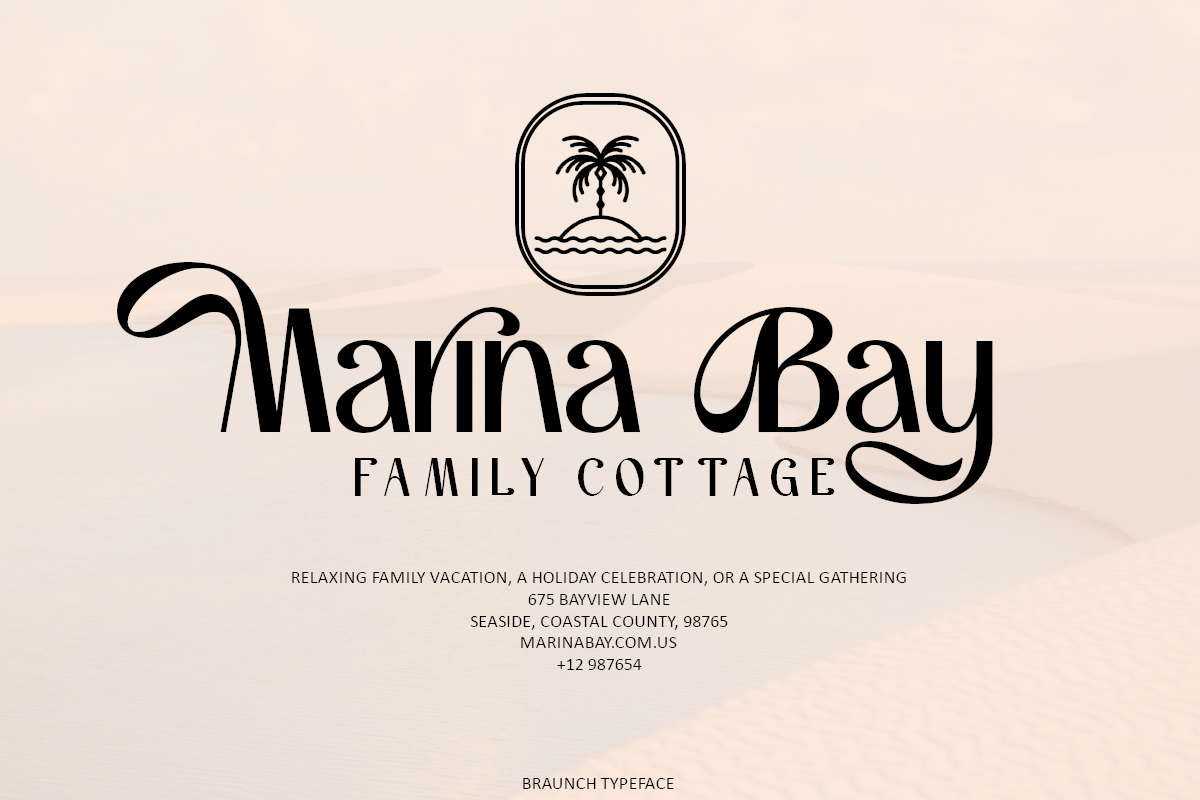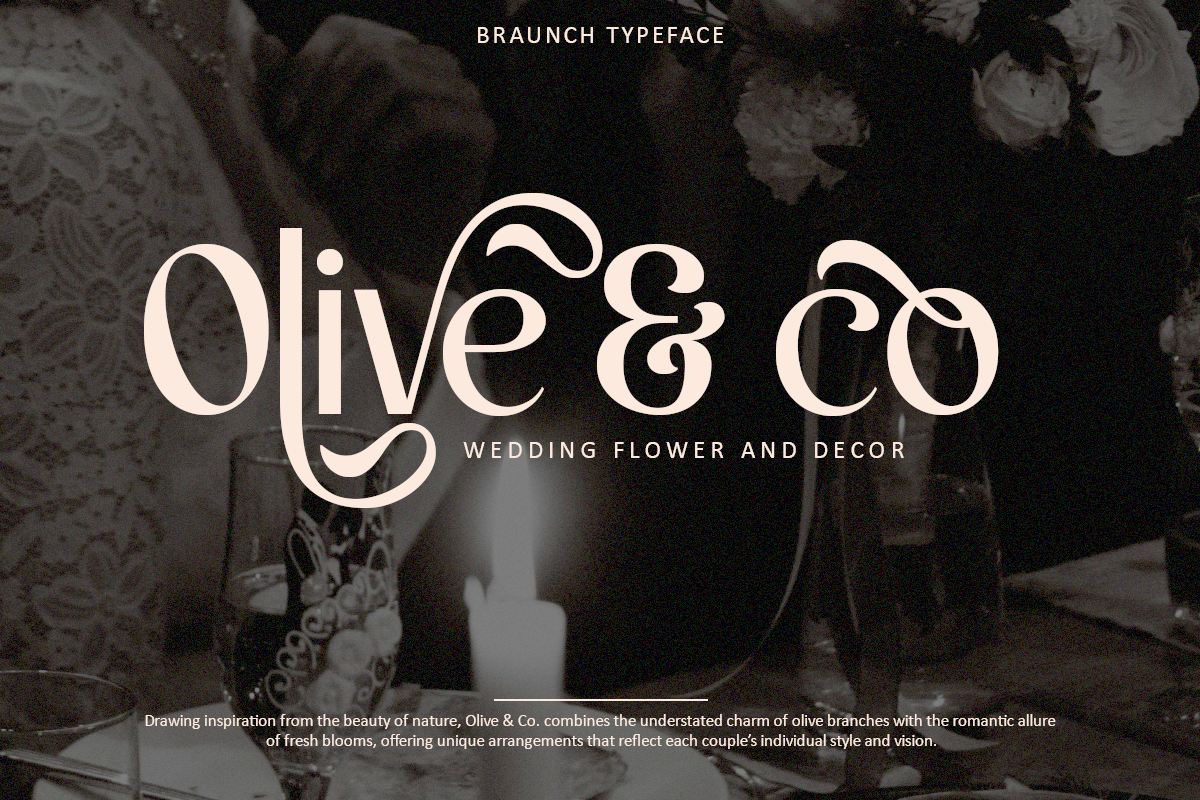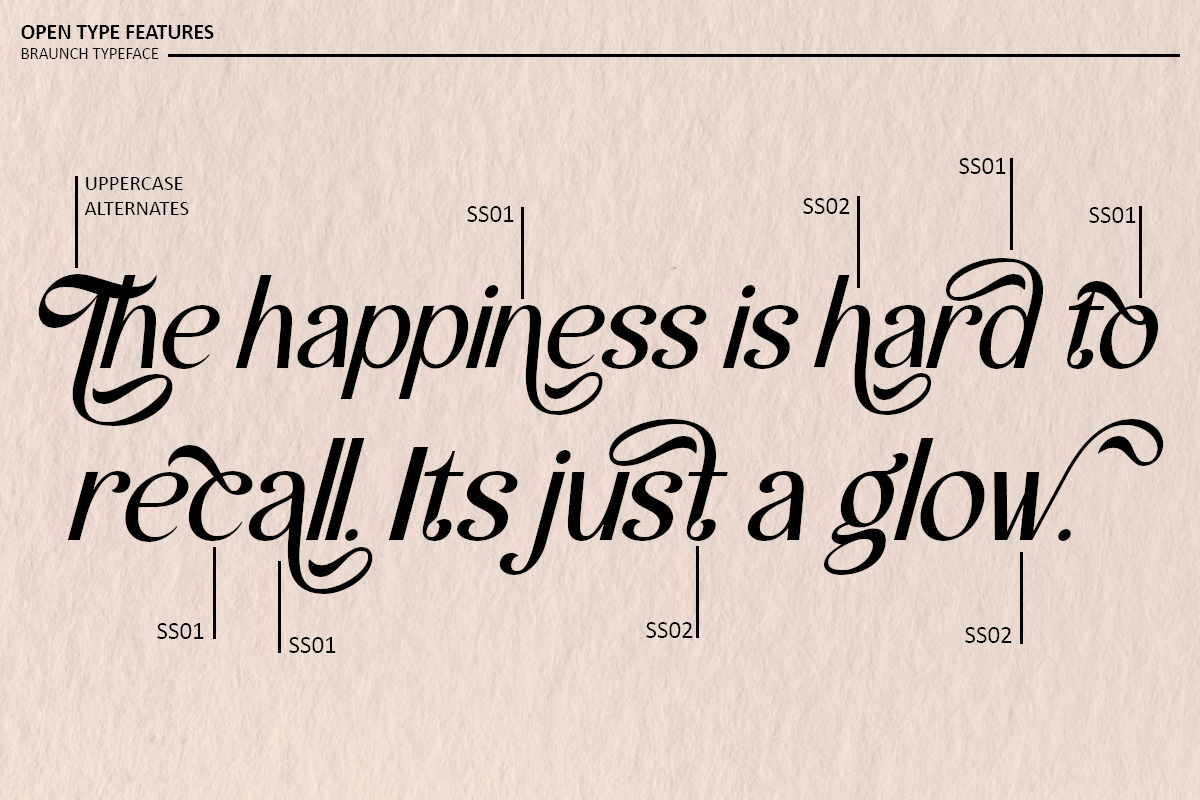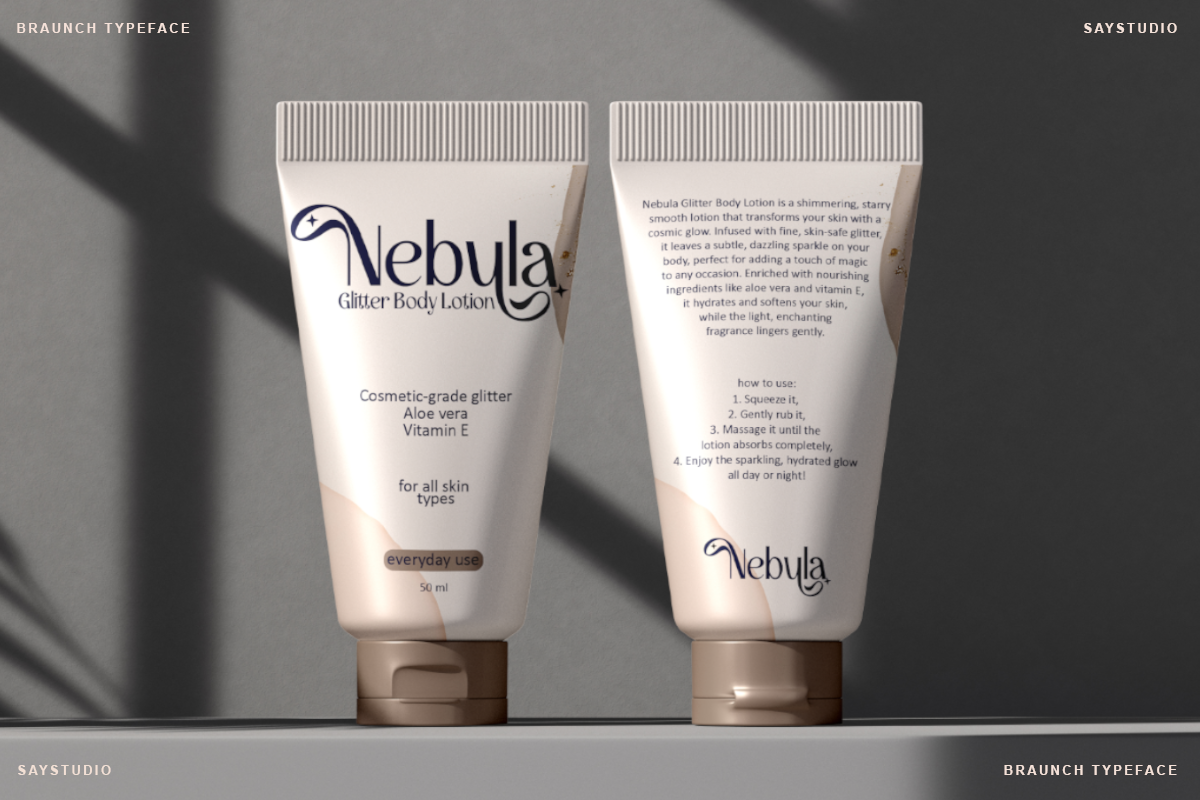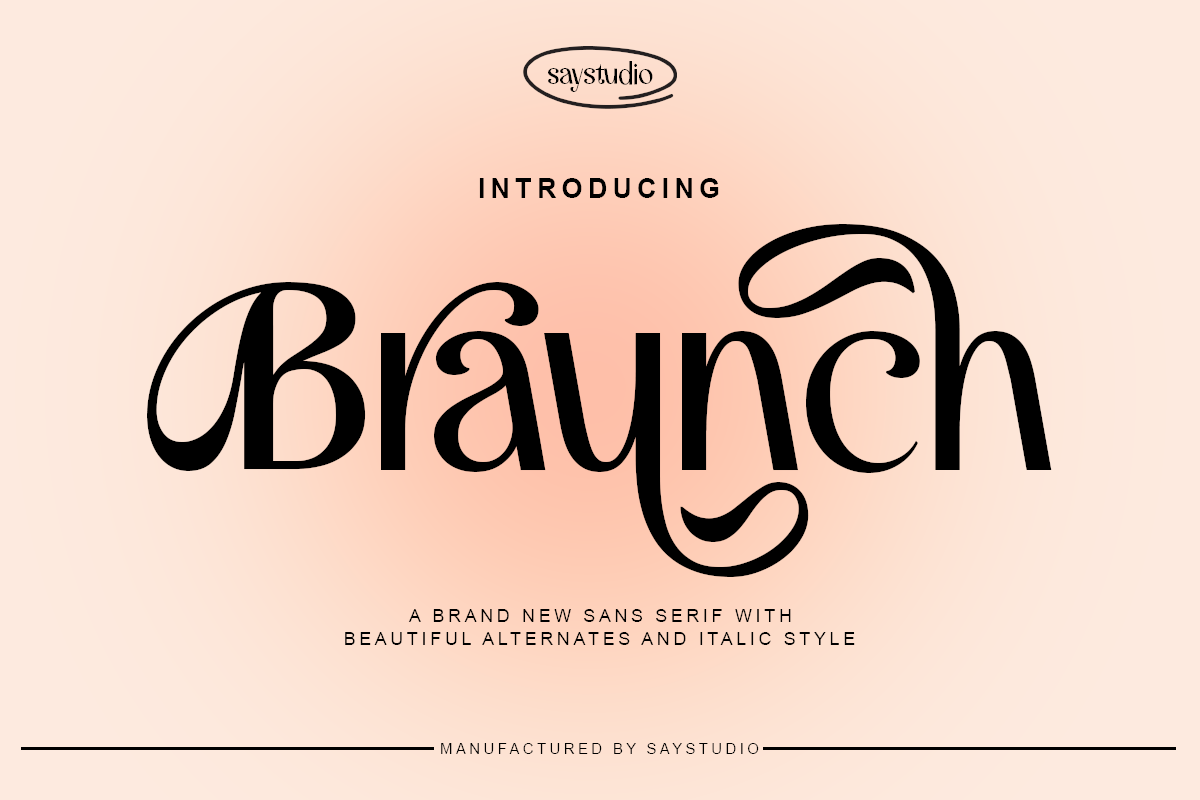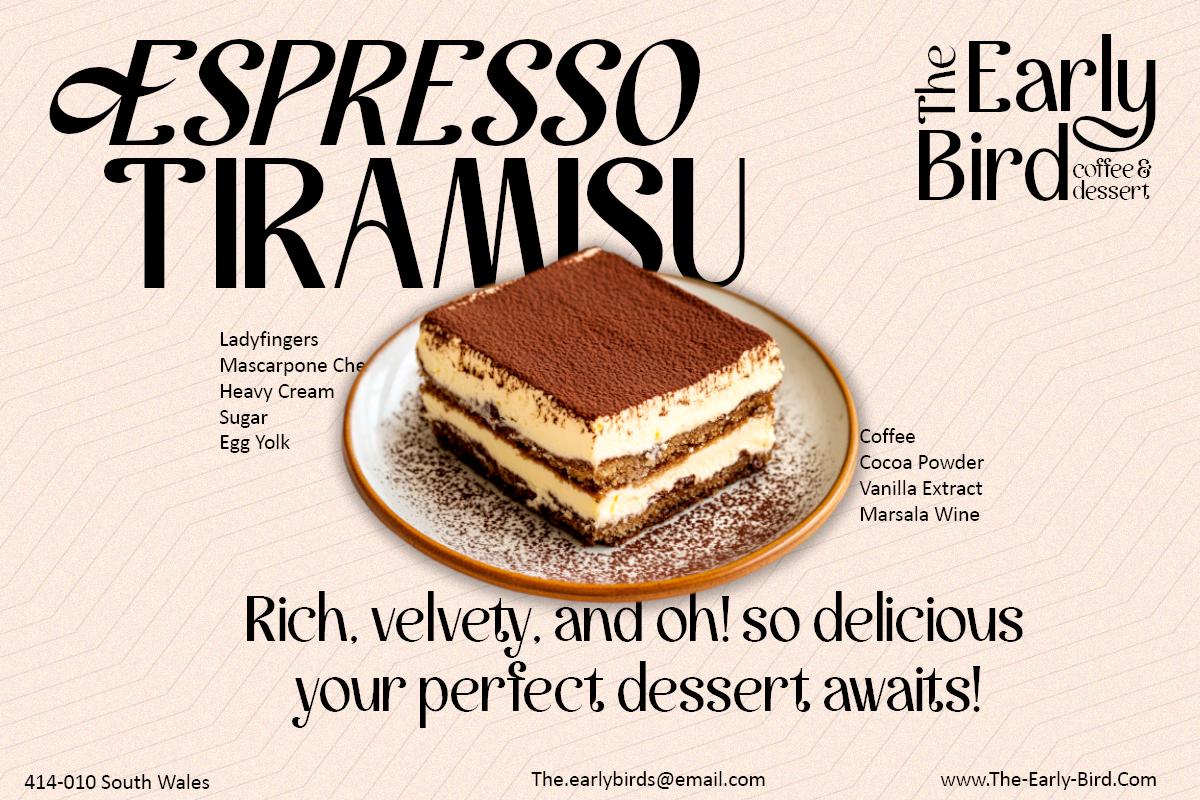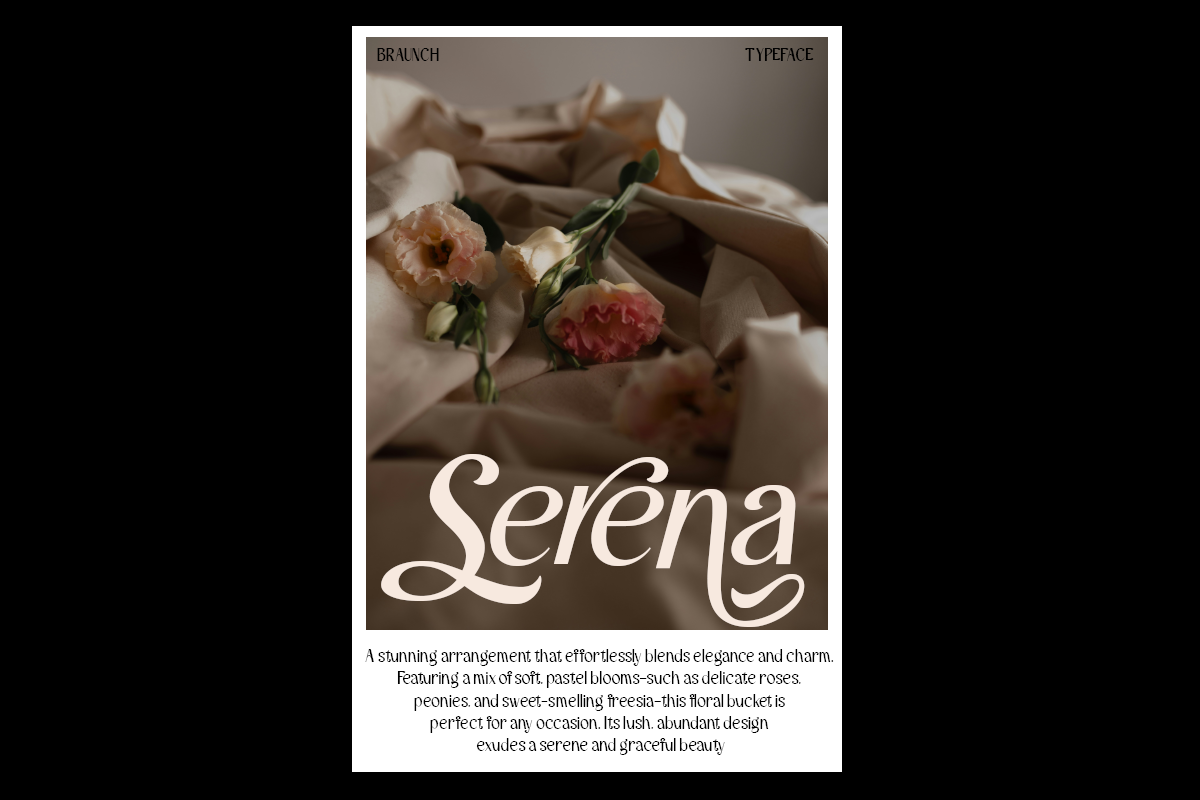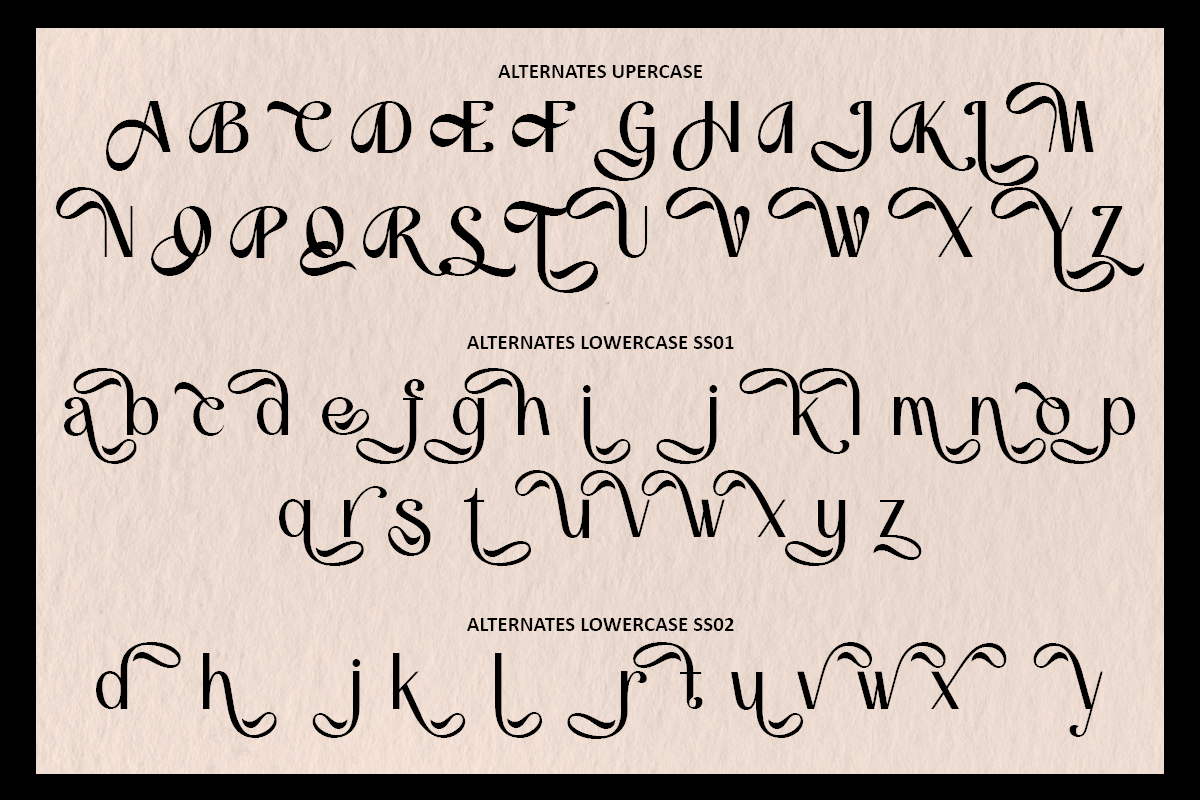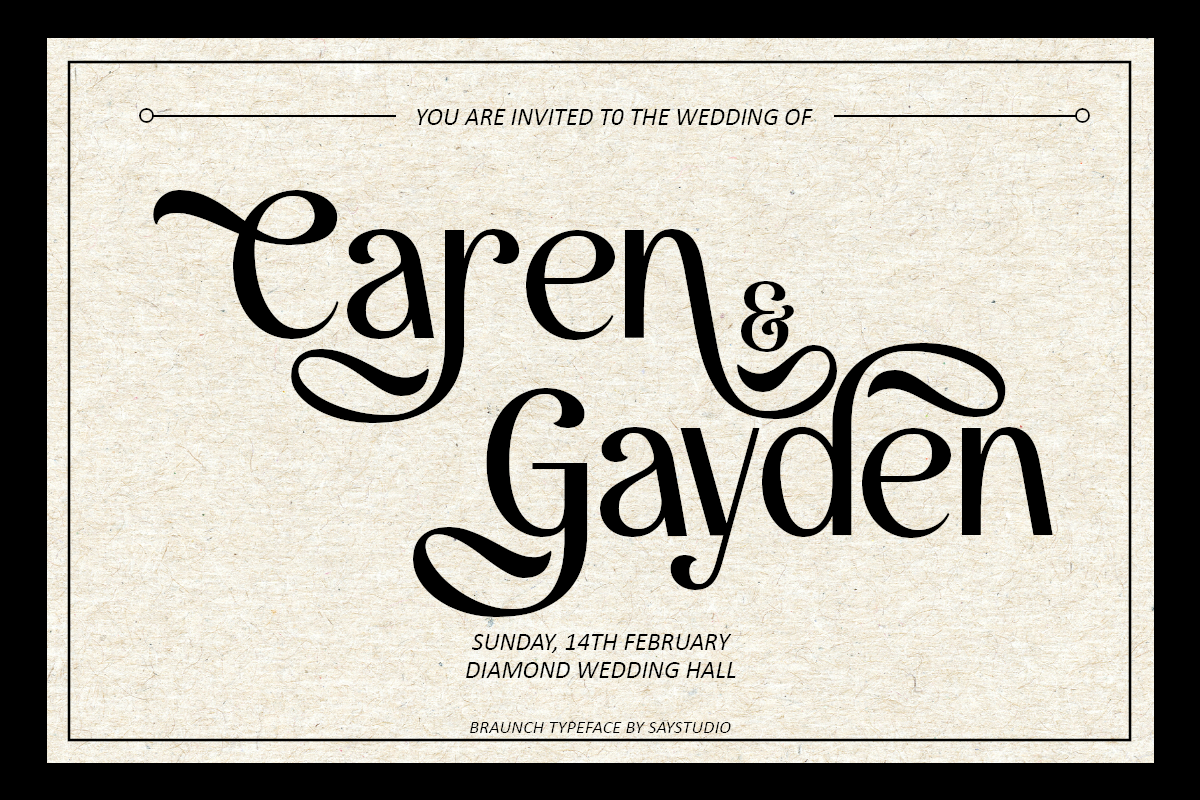
Braunch - Brand Sans Font
Braunch is sans serif font with luxury and elegant style with a unique modern typeface with beautiful character alternates. Braunch Ideal for posters, magazines, and print designs, brings a touch of sophistication and cool luxury vibes to every project.
- 70+ Alternates